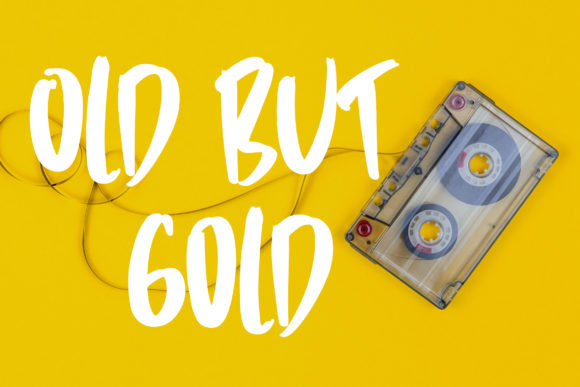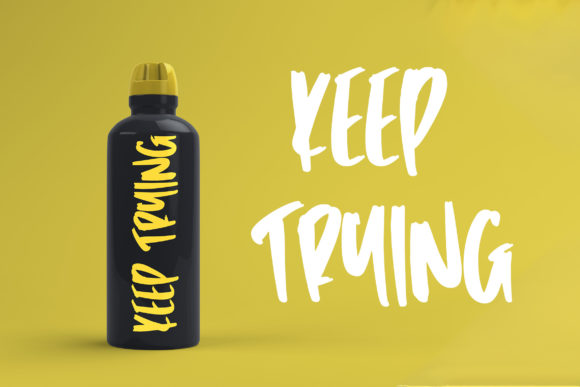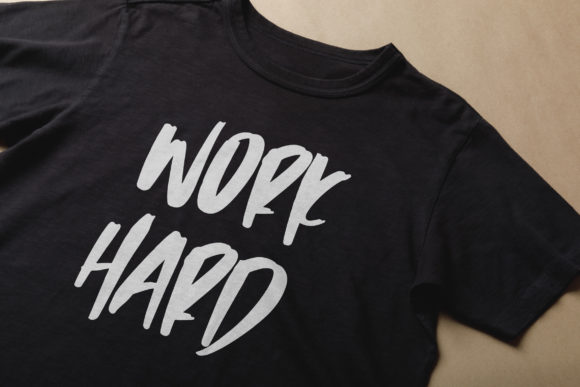
Introduction to Cracking Font
Cracking is a cool, brushed, urban styled display font.
Add it to each of your casual or informal designs, and you will love the outcome .
Key Features of Cracking Font